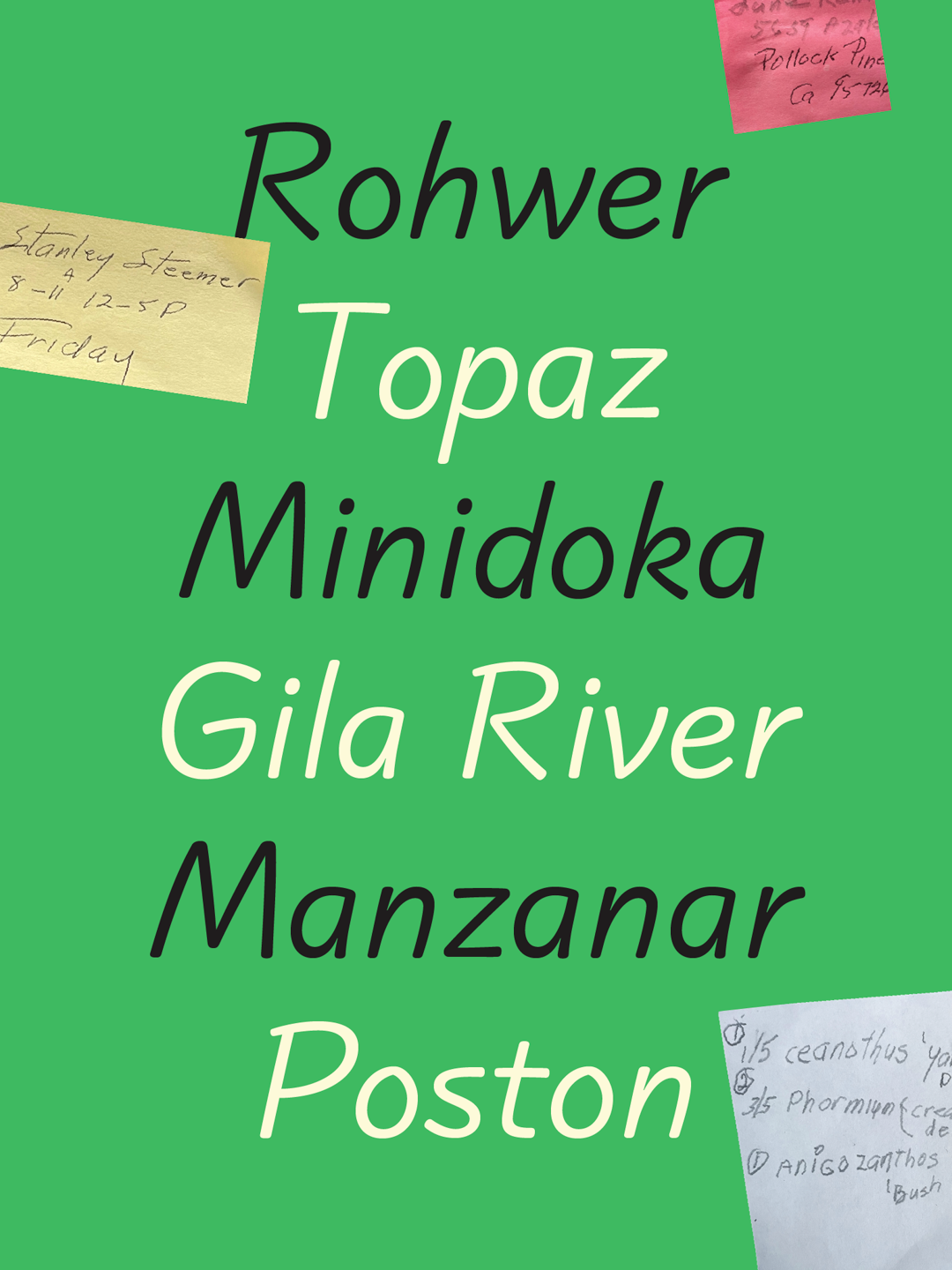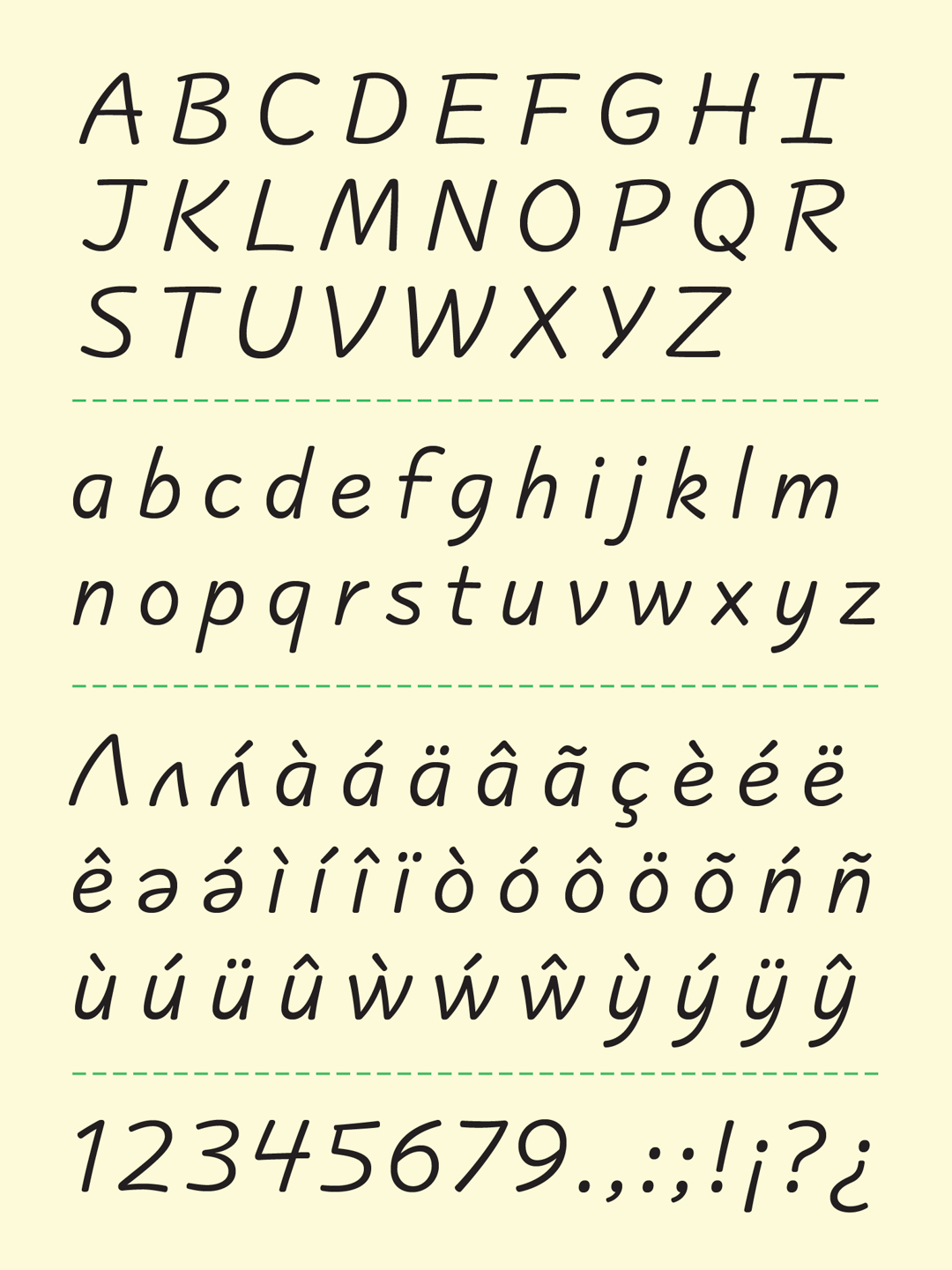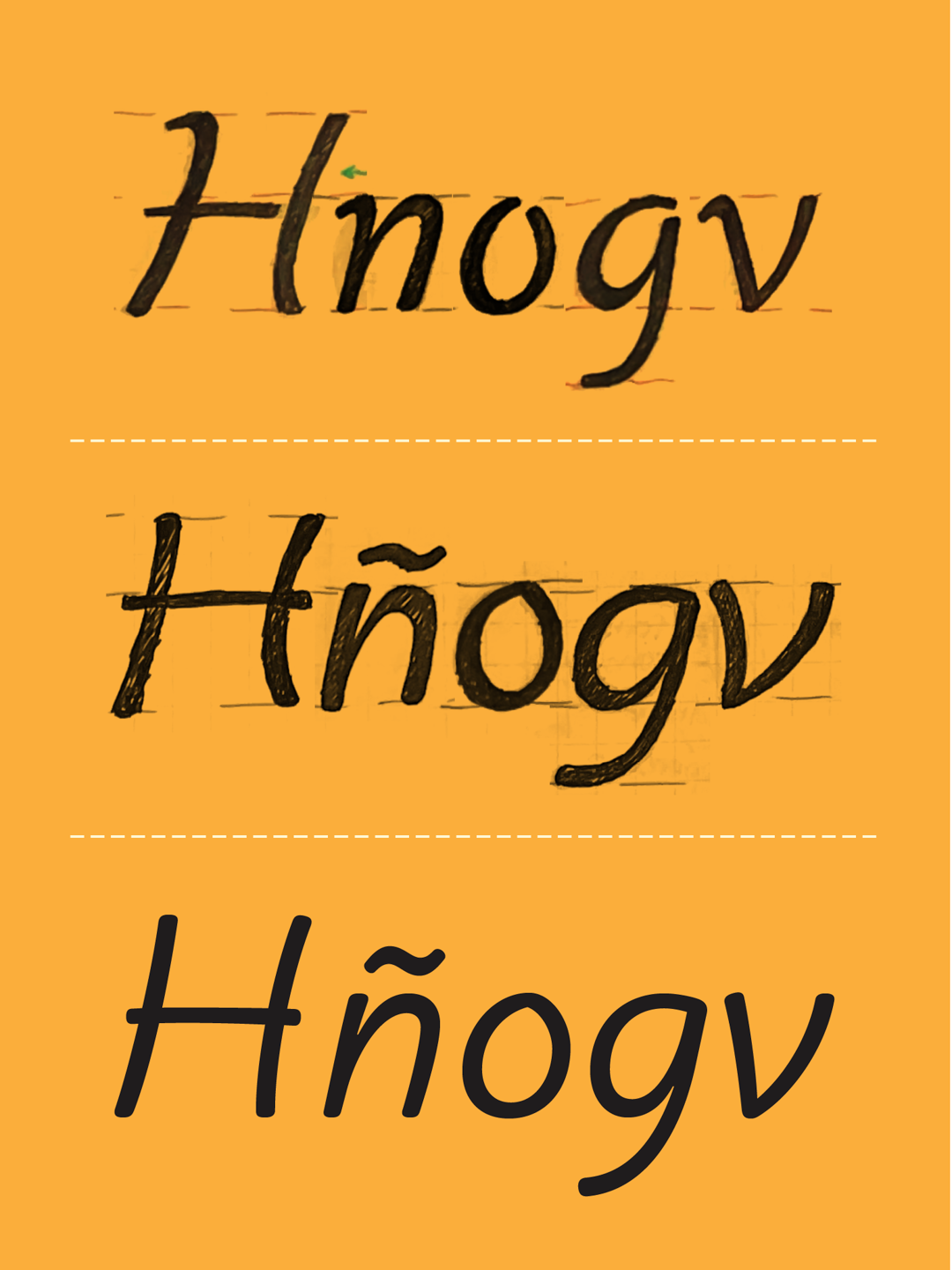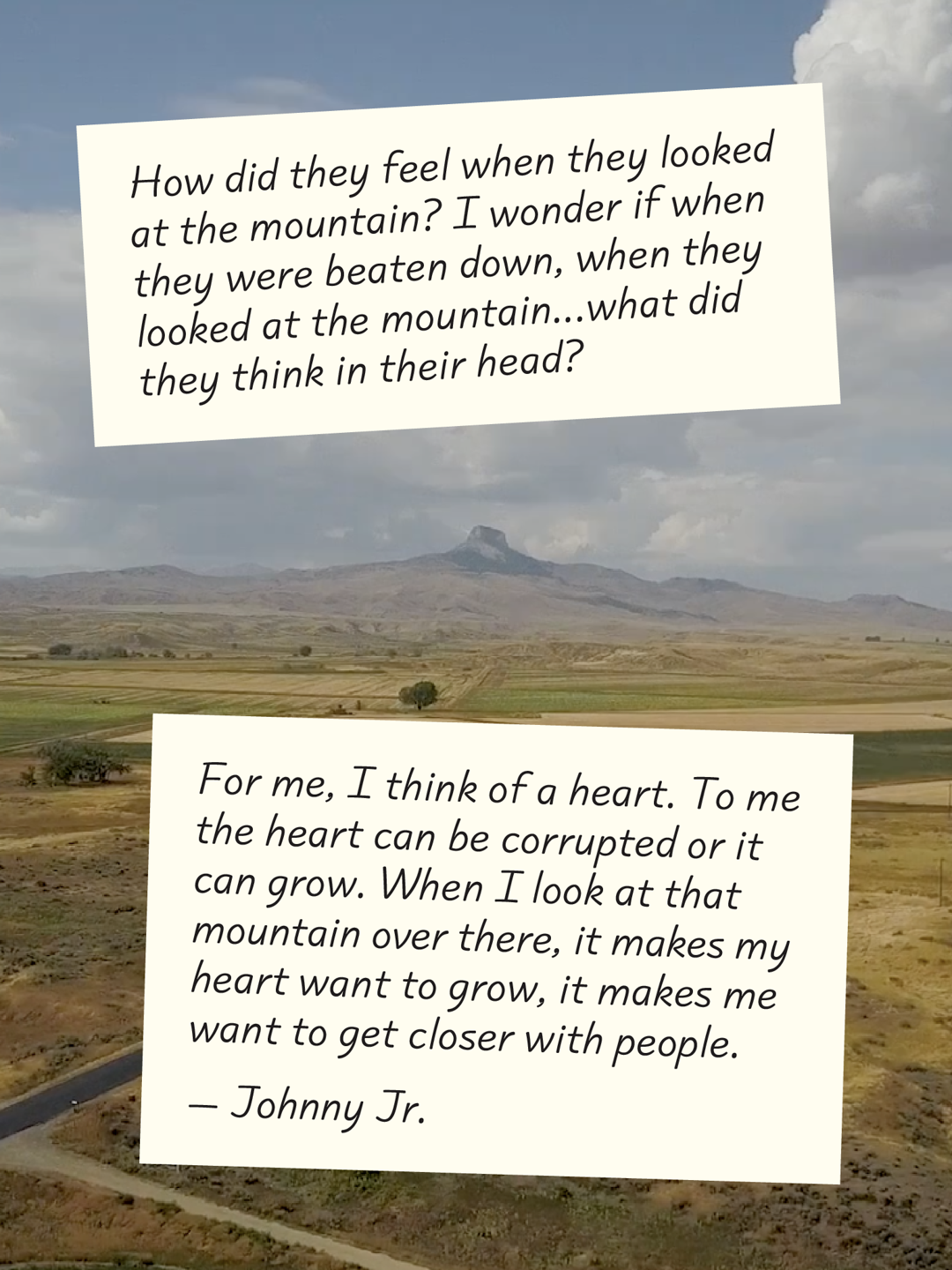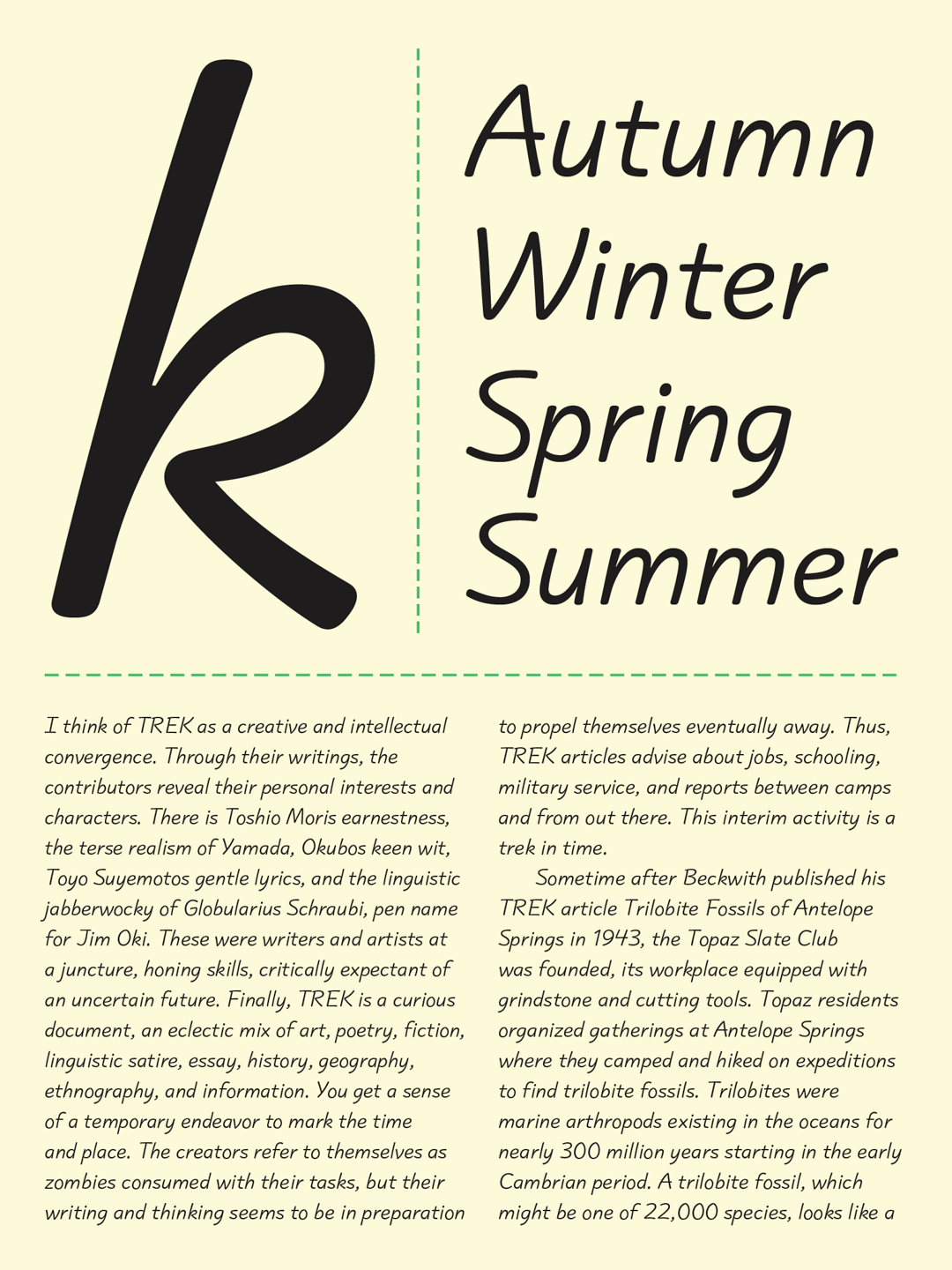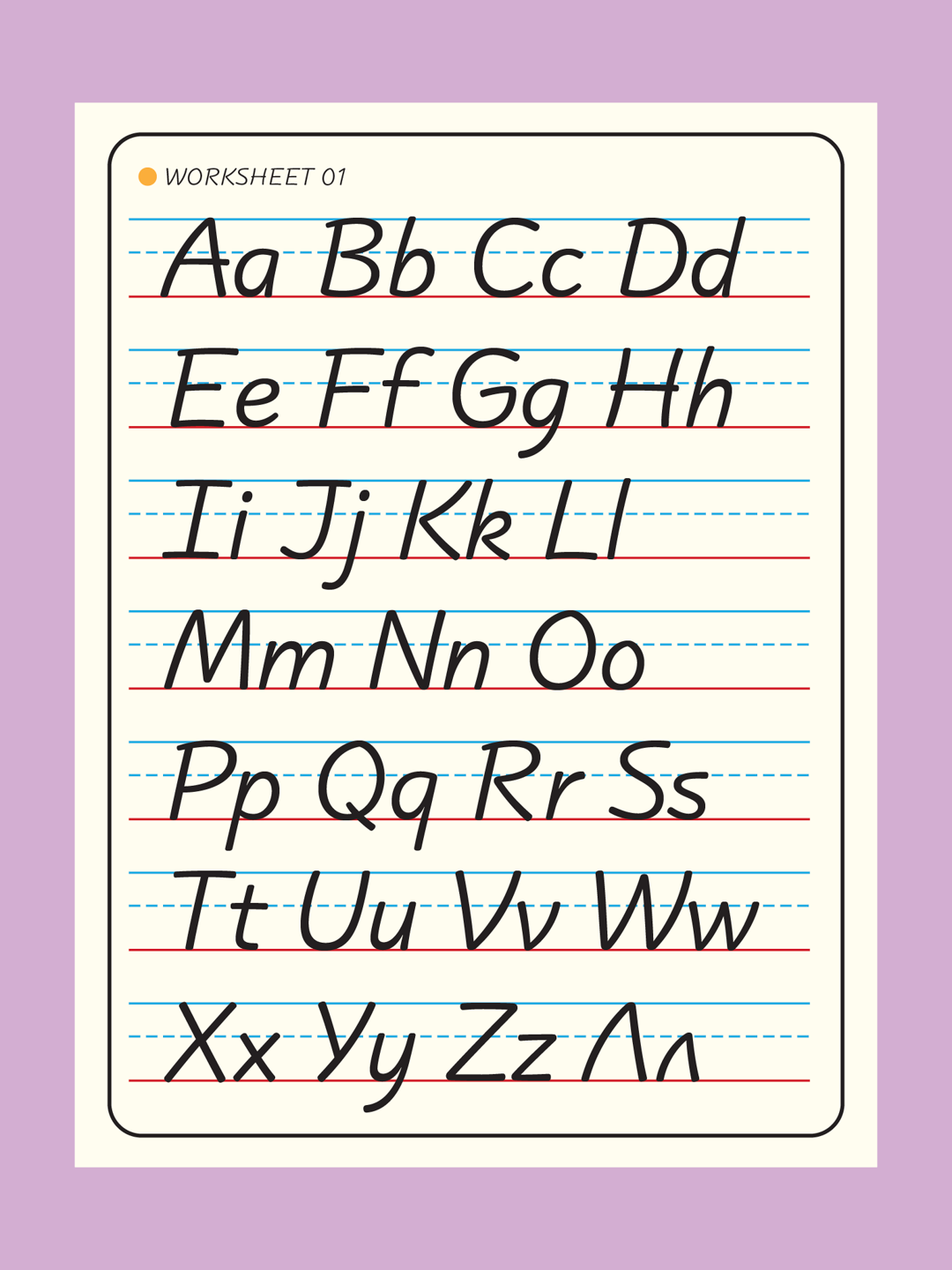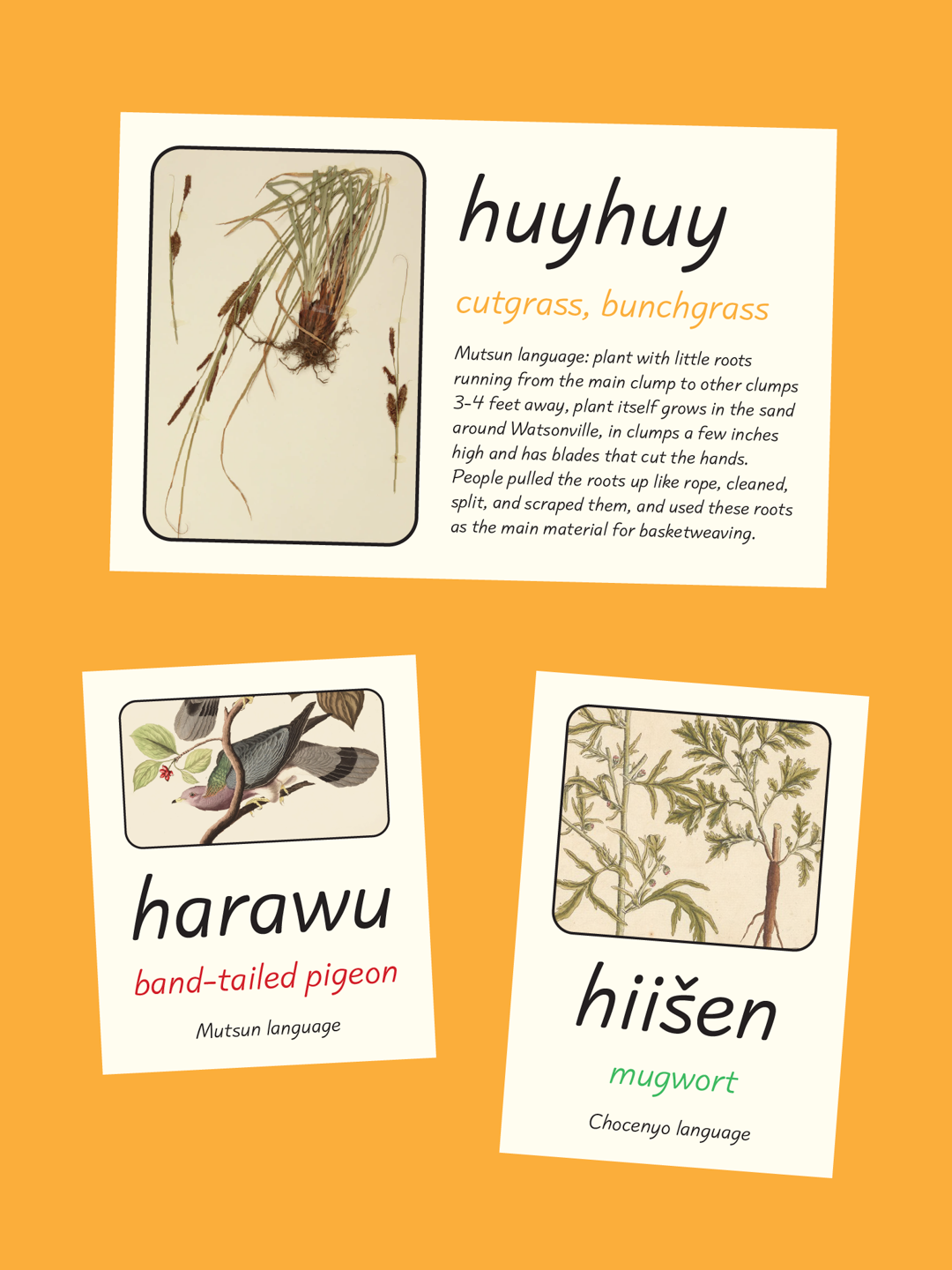
Suyeko is a sans serif, italic typeface that takes cues from handwriting. It aims to make text feel warm, soft, and digestible for readers.
The idea for Suyeko came from a small collection of my grandma’s post-its and handwritten recipe notes that I had taken photos of over the years. Her everyday handwriting feels casual and straightforward but retains remnants of the more fluid cursive forms that she grew up writing. My grandma and the histories she embodies mean so much to me, so I wanted the process of working on this typeface to feel personal and get at questions about designing with memory and preservation in mind.
The process of designing Suyeko was a lot of push and pull. The semi-cursive characteristics of my grandma’s writing brought up a lot of questions: will it have more open or incomplete forms similar to some script styles? What elements make this feel more formal, or less? What choices capture the character and warmth of her writing even if they don’t mimic its literal construction?